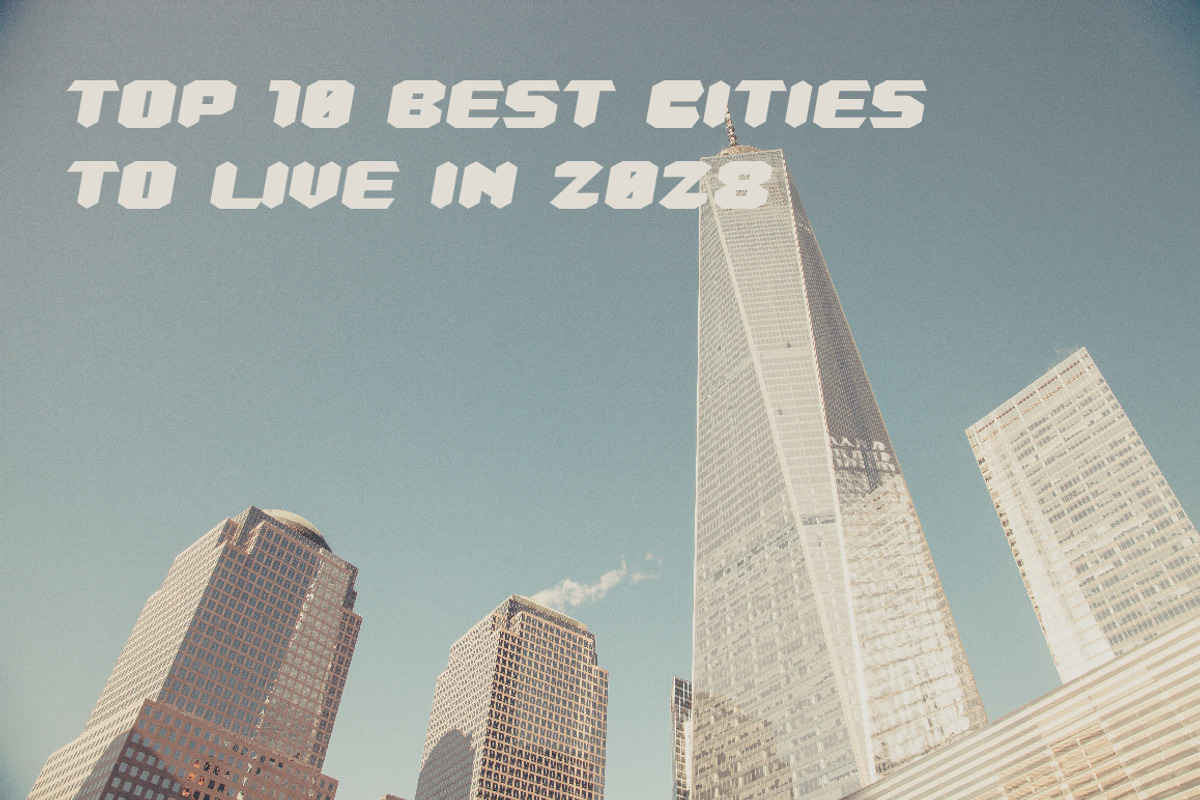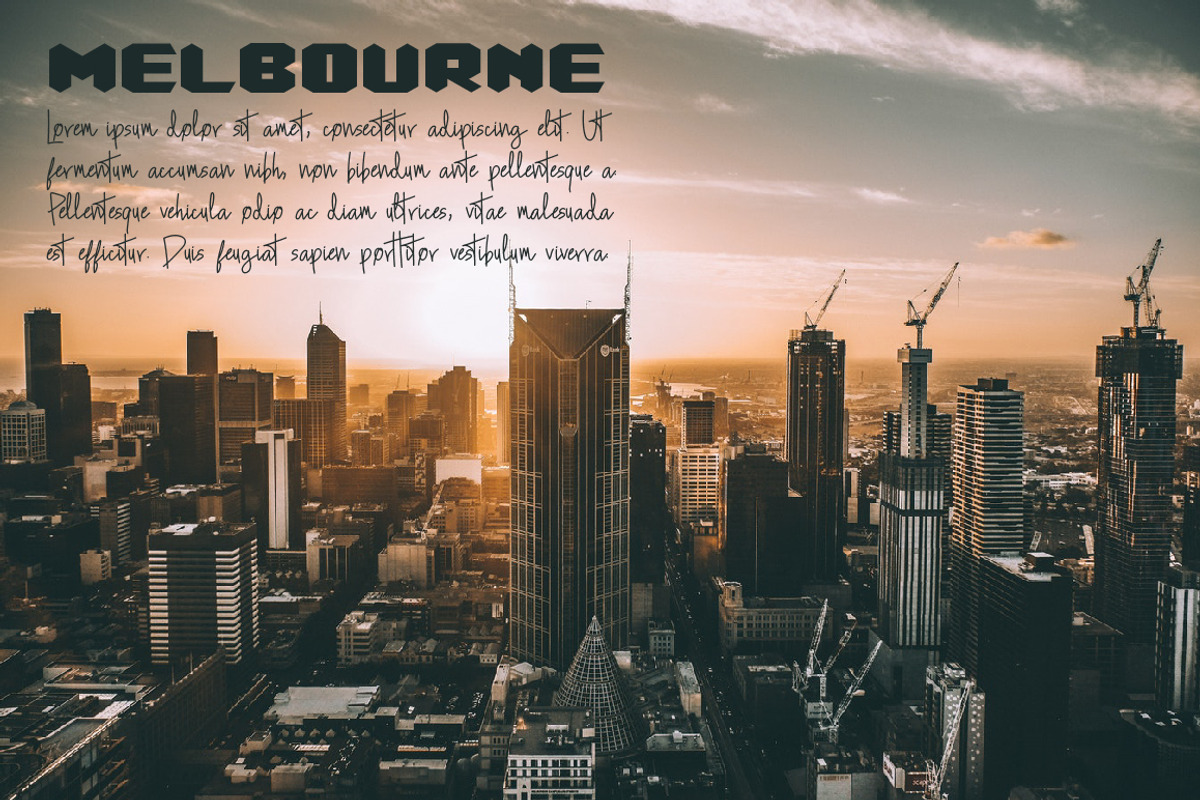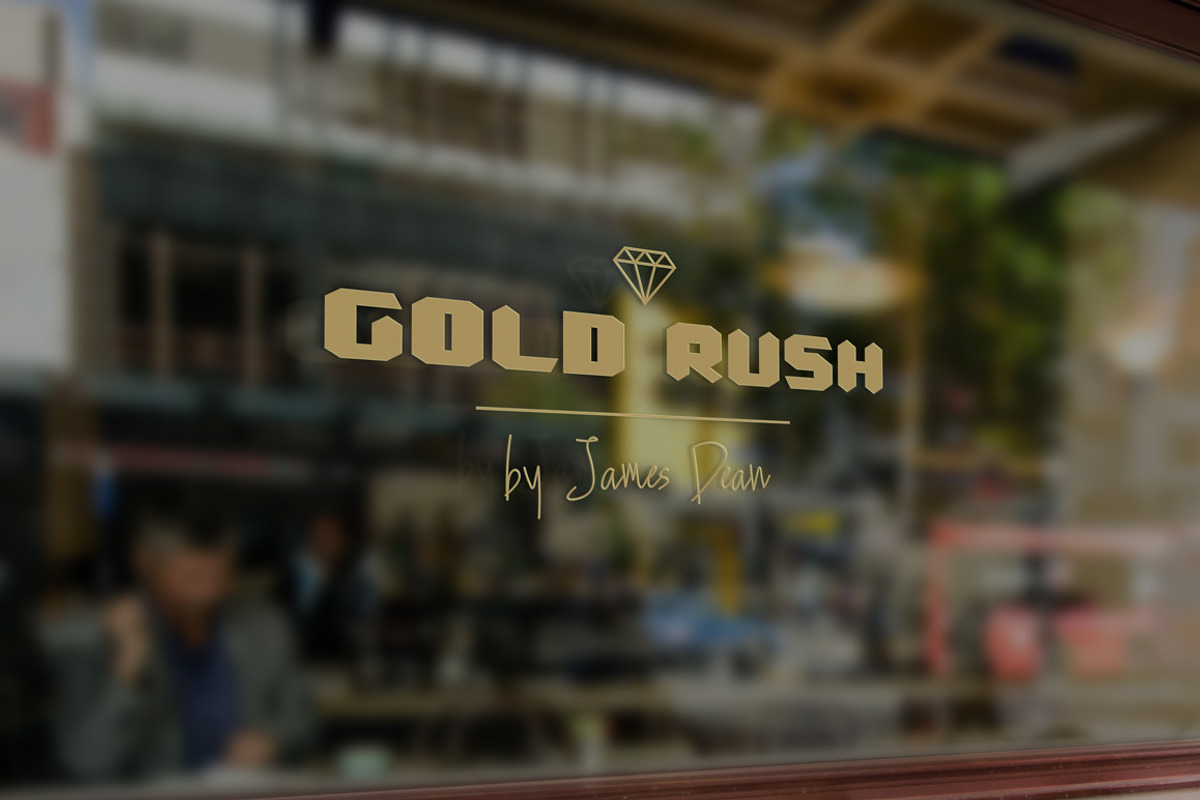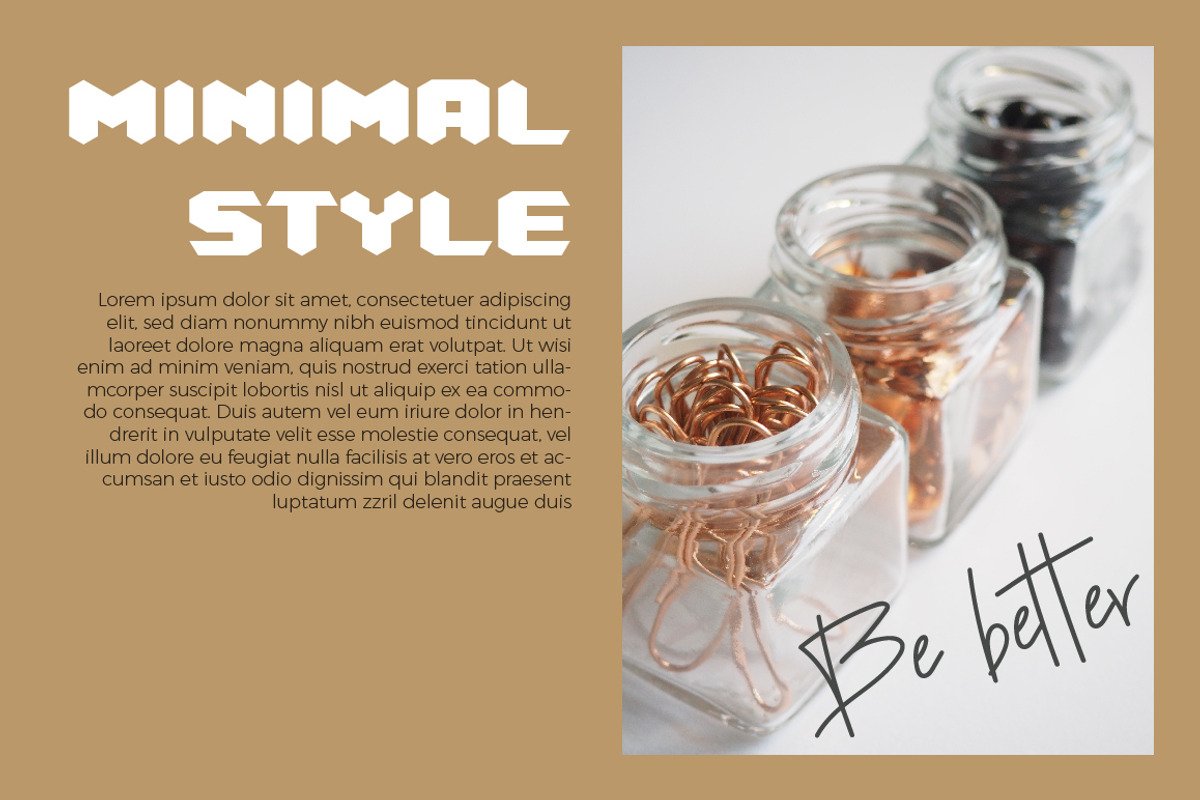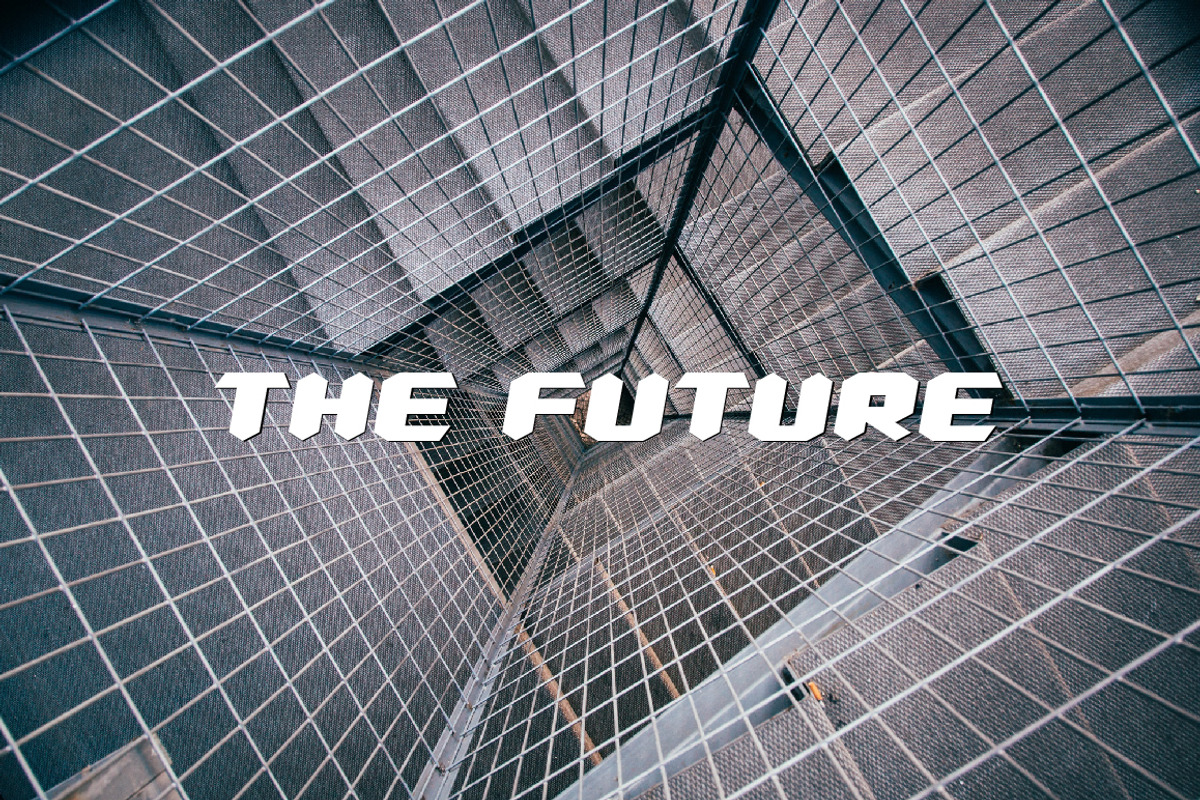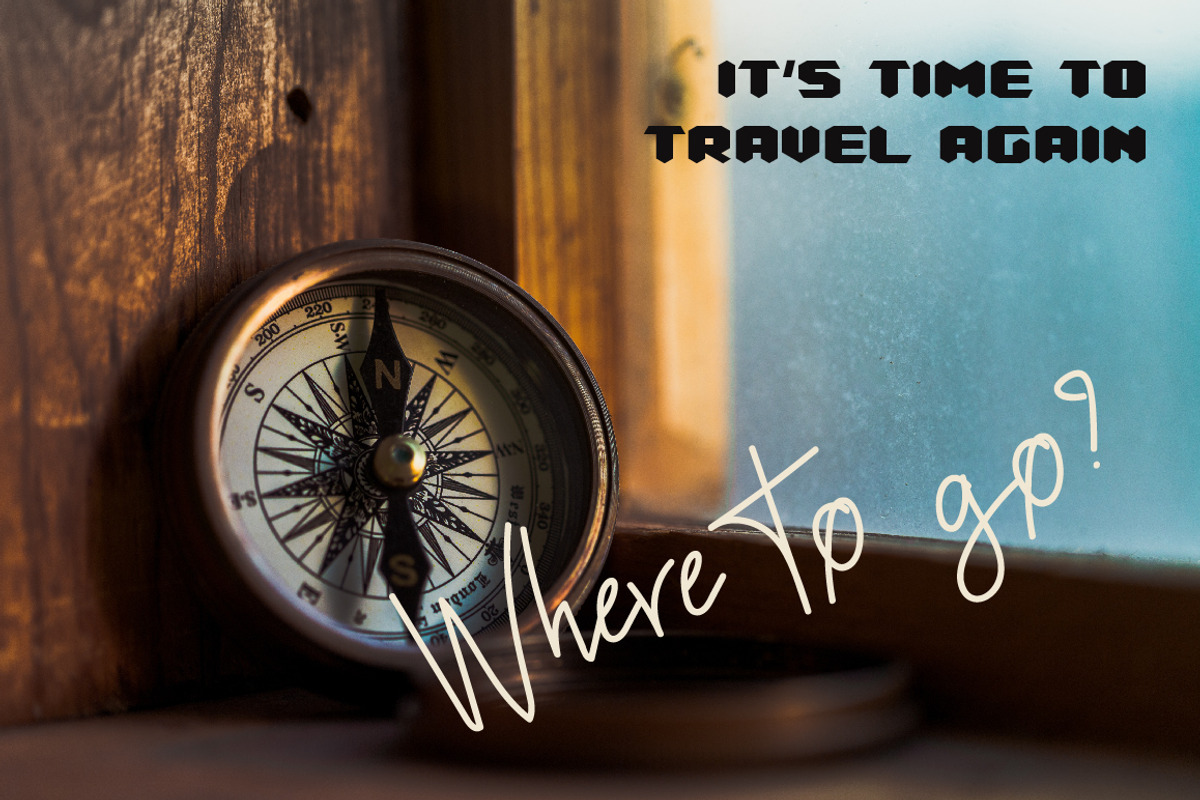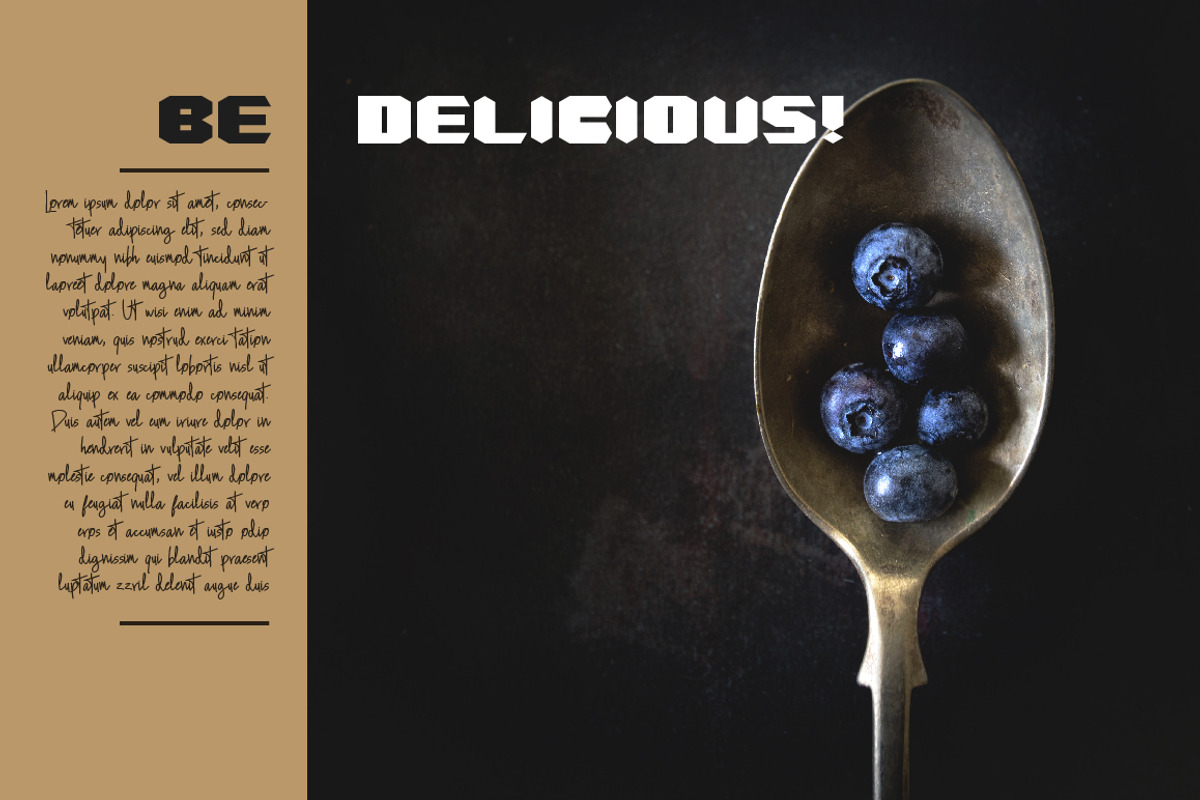
Gold Rush Font Trio
Gold Rush is a font family contain 2 display typeface(regular&italic) and 1 handwriting typeface designed to give off a futuristic vintage vibe.
This font trio was inspired my the letter M of Melbourne city, Australia (I have been there and had a lot of good coffee). The letter M is in geometric shape. That M made me designed a whole typeface. And I also created the handwriting typeface to pair with the regular one. The handwriting typeface give off a fast and messy writing but still readable.
It can be use to create a magazine, e-book, modern logo design for your branding projects, corporate identity, labels, stickers, packaging design, apparel design, etc.
Standard ligature tt(for handwriting font)